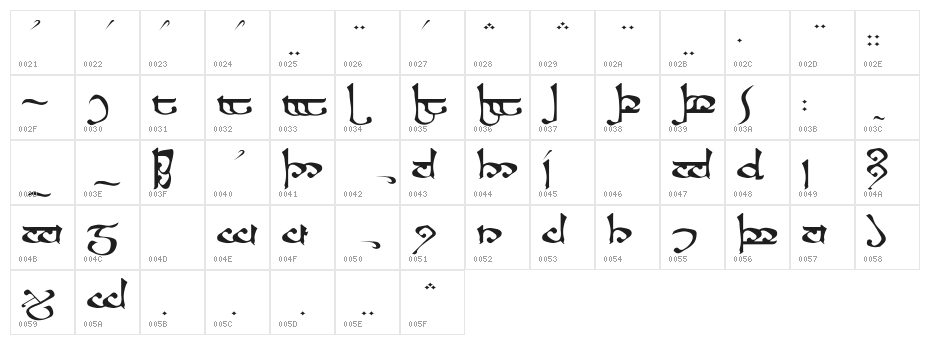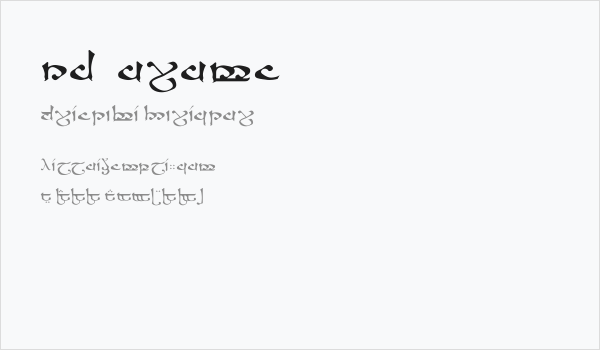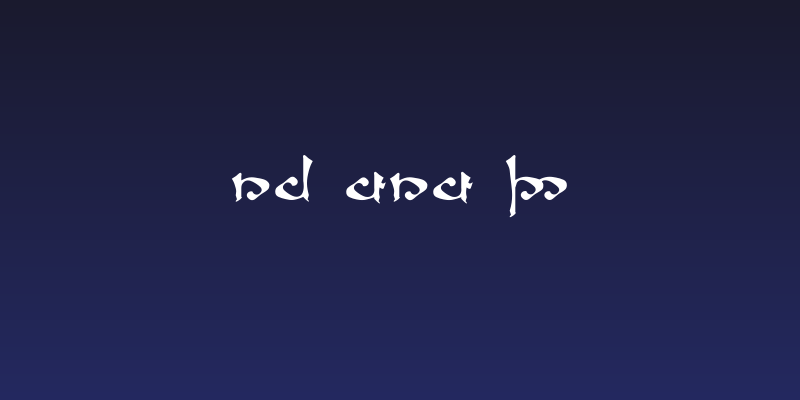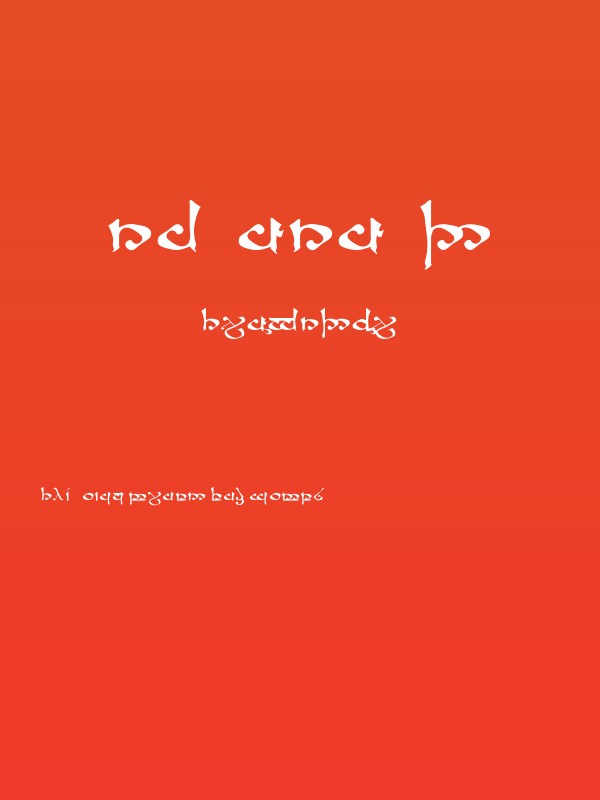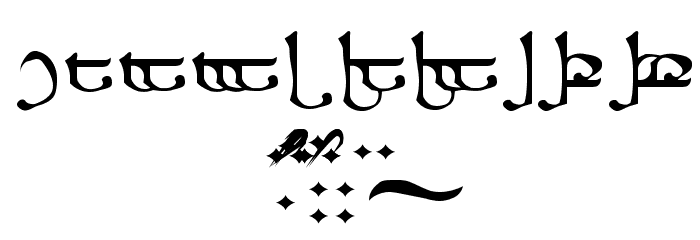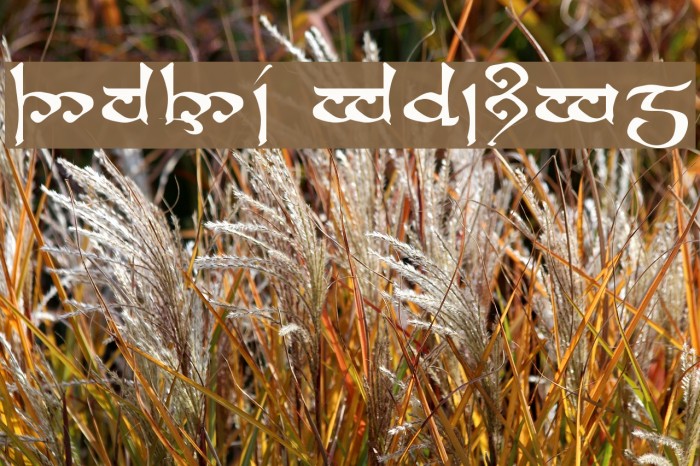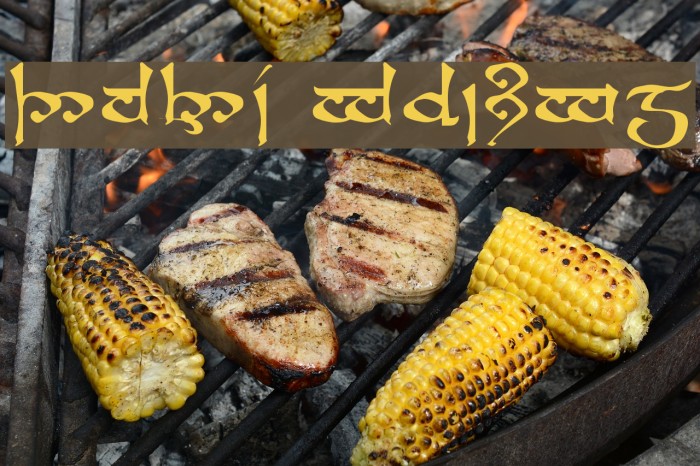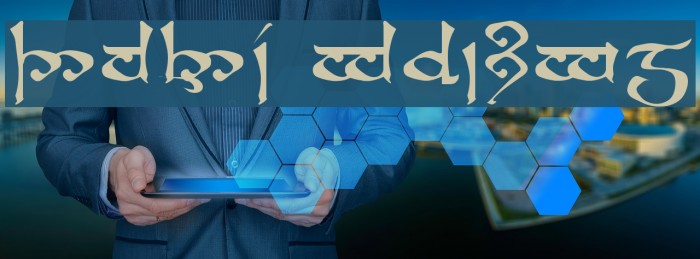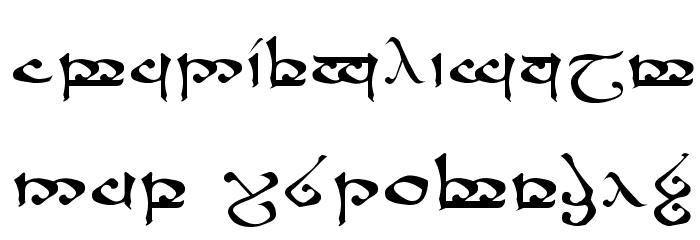
RSMoroma Font
RSMoroma Description
This font exhibits a unique and artistic style, characterized by its intricate and flowing letterforms. The characters are highly decorative, with elaborate curves and swirls that give it a distinct, almost calligraphic appearance. The strokes are bold and varied, with some parts of the letters being thicker than others, adding to the overall ornate look. This font seems to draw inspiration from historical scripts, possibly with influences from medieval or fantasy themes. The spacing between characters is relatively tight, which enhances the cohesive and continuous flow of the text. The font's overall style is both dramatic and elegant, making it suitable for projects that require a touch of sophistication and creativity.
| Use Case | Logos, Headlines, Artistic projects |
| Proposed Projects | Ideal for fantasy book covers, historical themed posters, or artistic invitations. |